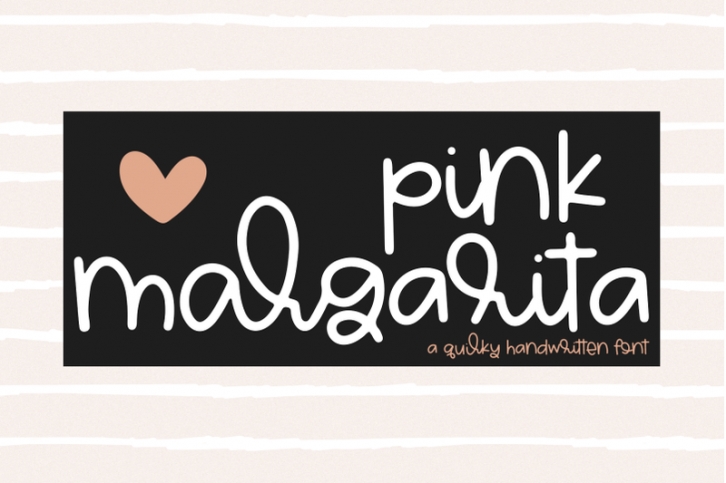
Pink Margarita is handwritten font with a fun, quirky look!
Pink Margarita is perfect for modern projects, headings, blogs, logos, brandings, invitations and more!